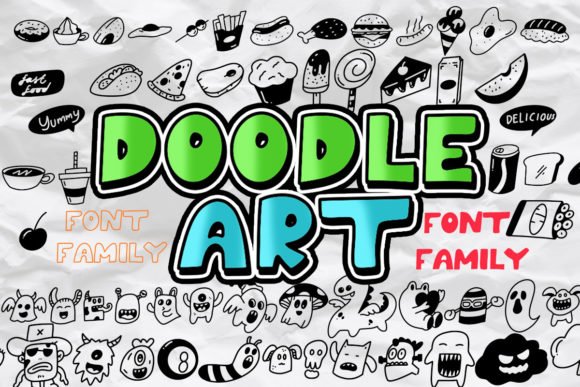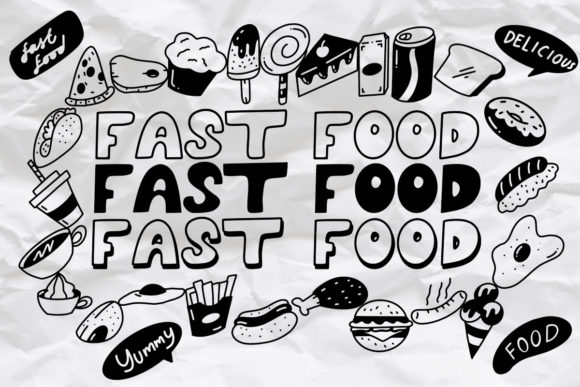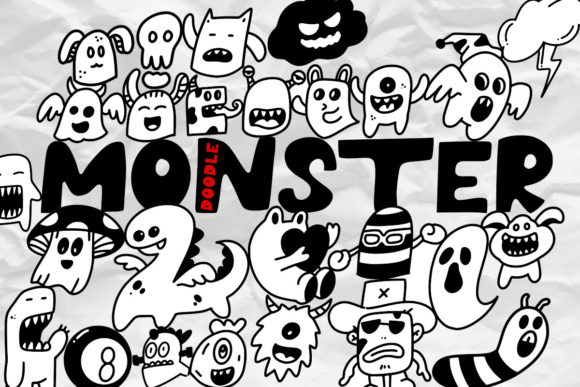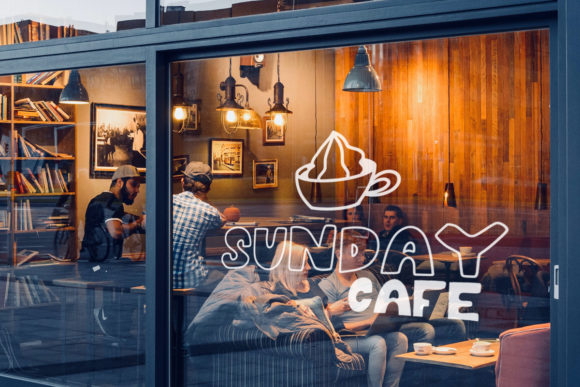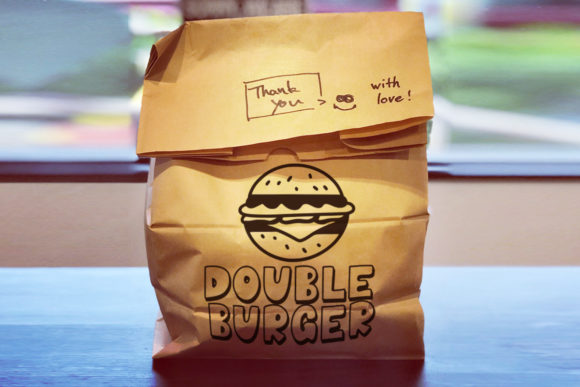
The Joy of Doodle Art
Have you ever found yourself scribbling away in a notebook, lost in the creative flow of the moment? The lines blur, and your imagination takes over, transforming your humble doodles into vibrant works of art. This is where the magic happens – where a simple idea can evolve into something truly special.
Meet Doodle Art Font, a playful display font that captures the essence of those carefree moments. Designed to add a touch of whimsy and personality to your designs, Doodle Art Font is perfect for posters, flyers, and prints that demand attention. As a designer, you’ll appreciate its endless possibilities and the freedom to experiment with unique typography.
Doodle Art Font Key Features
- Unique Hand-Drawn Style: Doodle Art Font features a playful, hand-drawn design that adds a touch of whimsy to any text.
- Customizable: Allows for easy customization of font colors, sizes, and styles to match your design needs.
- Extensive Character Set: Includes a wide range of characters, including Latin, Cyrillic, and Greek alphabets, as well as punctuation marks and symbols.
- Professional-Quality: Designed to meet professional design standards, making it suitable for various applications, including logos, signage, and advertising materials.
Doodle Art Font Review
I recently had the chance to experiment with the Doodle Art Font, and I must say it’s a unique and quirky addition to any design project. Here are some of the things that work well:
- ✨ It adds a playful touch to any text: Whether you’re creating a children’s book or a promotional poster, the Doodle Art Font brings a sense of whimsy and fun to your design.
- ✨ It’s versatile: From bold statements to subtle accents, this font can be used in a variety of ways to add visual interest to your design.
- ✨ It’s easy to use: The font is available in a range of sizes and styles, making it simple to integrate into your design workflow.
- ⚠️ It may not be suitable for formal or professional designs: While the font is perfect for creative projects, it may not be the best choice for more formal or corporate designs.
- ⚠️ It can be overwhelming in large quantities: While the font is great for accenting text, using it extensively throughout a design may be too much.
Overall, I think the Doodle Art Font is a great addition to any designer’s toolkit. It’s a fun and creative way to add visual interest to your designs, but it’s not without its limitations. Use it sparingly and with intention, and you’ll be sure to get the best results.
To get the most out of the Doodle Art Font, try the following:
- Combine the font with hand-drawn elements for a unique look.
- Use bold colors to make the font stand out.
- Experiment with different font sizes and styles.
The Doodle Art Font is perfect for:
- Artistic posters and flyers.
- DIY crafts and handmade projects.
Alternatives to Doodle Art Font
Whimsy Script
Whimsy Script is a playful, cursive font that can be used for titles, headings, and short paragraphs. It’s ideal for creating a childlike or vintage feel in designs. Compared to Doodle Art Font, Whimsy Script has a more refined and elegant look, making it suitable for a wider range of designs.
Great Vibes is a modern, handwritten font that’s perfect for creating a relaxed and casual atmosphere. It’s great for use in headings, titles, and short paragraphs. Compared to Doodle Art Font, Great Vibes has a more fluid and dynamic look, making it ideal for designs that require a sense of movement.
Carolyna Pro is a modern, script font that’s great for use in titles, headings, and short paragraphs. It’s ideal for creating a sophisticated and elegant look in designs. Compared to Doodle Art Font, Carolyna Pro has a more refined and polished look, making it suitable for high-end designs.